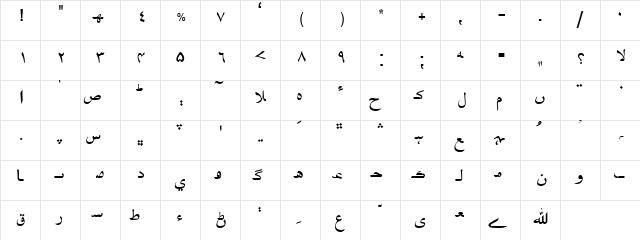
Al Mehran Regular
Design Context for Al Mehran Typeface
Al Mehran takes a measured approach to typography — its balanced proportions and neutral character make it a reliable workhorse for both digital and print work.